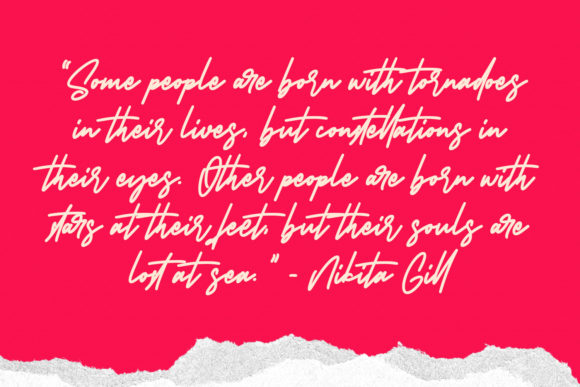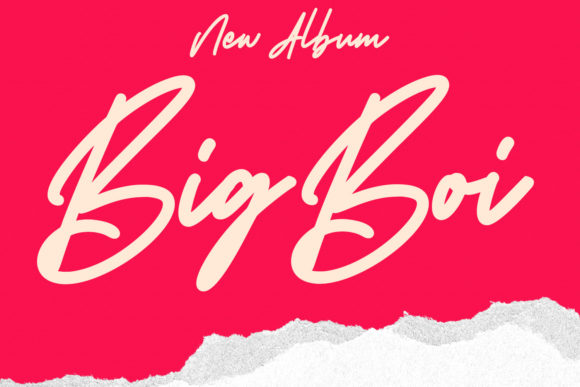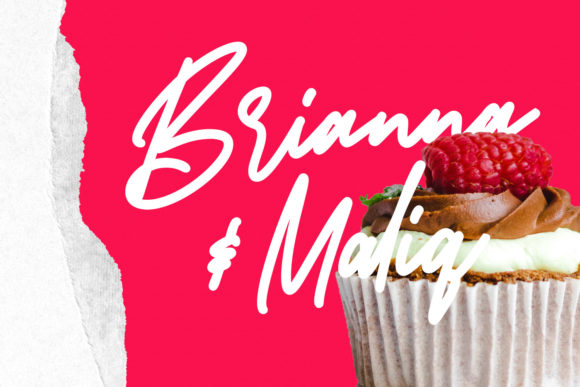
Introduction to Bizare Love Monoline Script Font Font
Have you ever stared at a blank canvas, waiting for the perfect font to come to life? As a designer, I know that feeling all too well. But what if I told you that the perfect script font is just a click away? Enter Bizare Love Monoline Script Font Font, a beautiful, high-quality script font that’s sure to elevate your creative projects.
Whether you’re working on a logo design, social media post, or movie title, Bizare Love Monoline Script Font Font is the perfect design resource to add some flair to your work. With its unique, flowing lines and transparent background, this font is sure to make your designs stand out. And the best part? It’s available for free download, making it an invaluable addition to any designer’s toolkit.
So why is Bizare Love Monoline Script Font Font so valuable for designers? Not only is it free to download, but its high-quality design and versatility make it a must-have for any creative project. Whether you’re a seasoned pro or just starting out, this font is sure to inspire your next big design.
Key Features of Bizare Love Monoline Script Font Font
- Unique, hand-drawn design with a high-quality feel, ideal for creative projects and design resources.
- Available in a transparent background, making it easy to overlay on any image or design.
- Perfect for adding a touch of elegance and sophistication to any design, from wedding invitations to branding materials.
Honest Review: Bizare Love Monoline Script Font Font
As a designer, I was excited to try out the Bizare Love Monoline Script Font Font for a creative project. I have to say, I was impressed with its unique and elegant design. ✨ The font has a beautiful, handwritten feel that’s perfect for titles and headings. The transparent background makes it easy to layer with other design elements.
- What works well:
- Unique and elegant design
- Handwritten feel perfect for titles and headings
- Transparent background for easy layering
- Limitations:
- No bold or italic versions available
- May not be suitable for body text due to its script style
Overall, I’m impressed with the Bizare Love Monoline Script Font Font. It’s a great addition to any designer’s toolkit, and I’d definitely recommend it for creative projects that require a touch of elegance. ⚠️ Just be aware of the limitations mentioned above.
Introduction to Bizare Love Monoline Script Font Font
Bizare Love Monoline Script Font Font is a high-quality, free design resource perfect for creative projects. With its unique, hand-drawn style, this font adds a touch of elegance to any design.
Tips for Getting the Most Out of Bizare Love Monoline Script Font Font
To get the most out of Bizare Love Monoline Script Font Font, try pairing it with other high-quality design resources, such as graphics and textures. This will help to create a cohesive and visually appealing design.
Common Use Cases for Bizare Love Monoline Script Font Font
Bizare Love Monoline Script Font Font is perfect for a variety of creative projects, including wedding invitations, birthday party decorations, and more. Its unique style makes it a great choice for any design that needs a touch of elegance and sophistication.
Is the Bizare Love Monoline Script Font Font suitable for use in print or digital design?
Yes, the Bizare Love Monoline Script Font Font is a high-quality design resource that can be used for both print and digital design projects. Its smooth and elegant lines make it perfect for creating eye-catching titles, headings, and other design elements for your project.